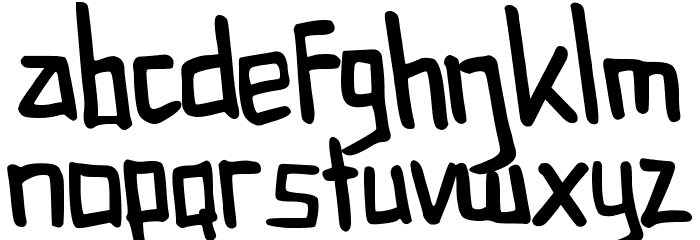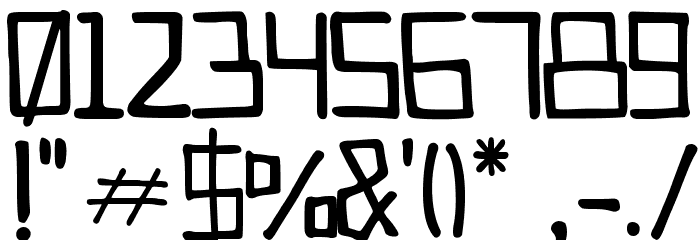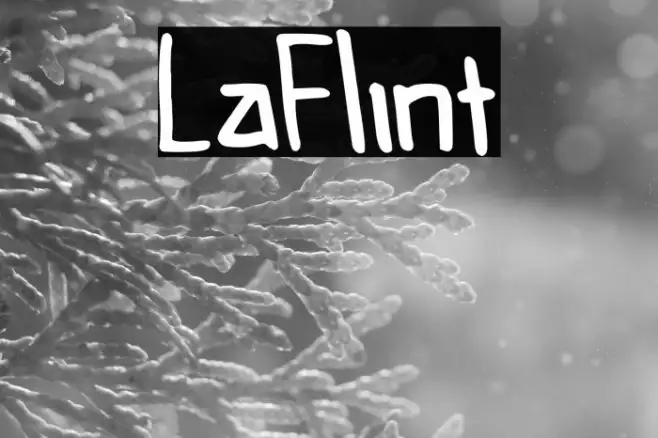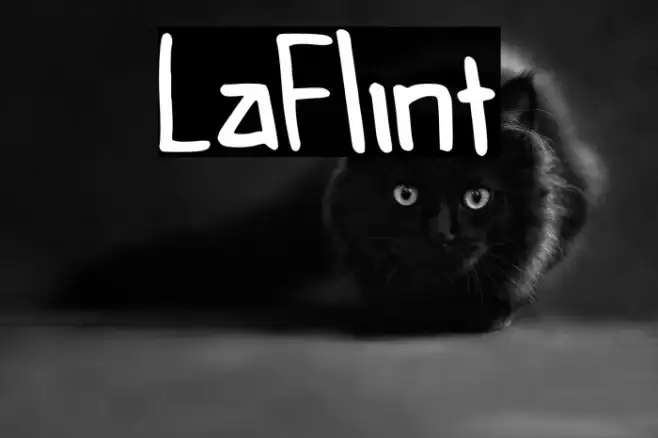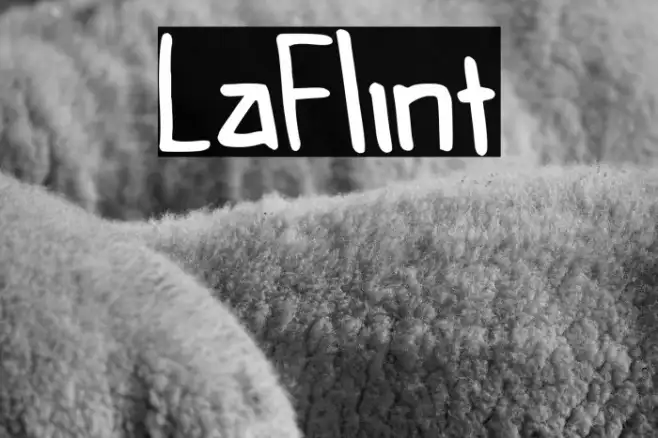
LaFlint Font
This font features a playful, hand-drawn style with a unique, irregular structure. The uppercase letters are bold and slightly condensed, with a quirky, uneven baseline that adds character. The lowercase letters maintain a similar style, with some characters exhibiting exaggerated curves and angles. Numbers are consistent with the overall design, offering a bold and slightly whimsical appearance. Special characters are creatively integrated, maintaining the hand-drawn aesthetic. The font's overall look is casual and artistic, making it suitable for projects that require a personal touch.
A playful, hand-drawn font with a bold, irregular style.
- Proposed Projects: Ideal for children's books, creative posters, casual branding, and artistic invitations.
- Overall Style: Casual, Artistic